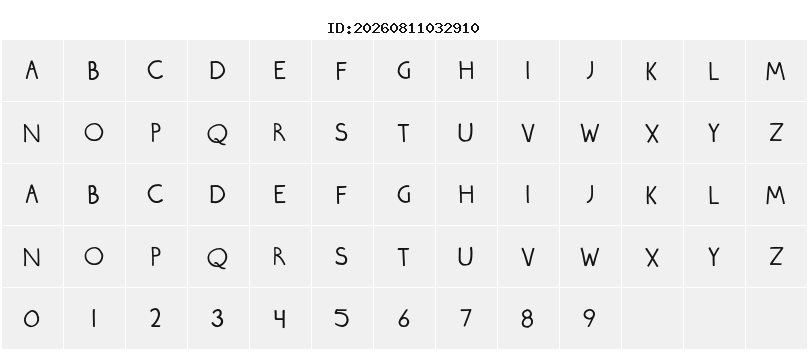
• Font Name: Roundmarker
• Designer: Alex
• Manufacturer: PYRS Fontlab Ltd. / Made with FontLab
• Description: Also released under the name "February 11, 2015" with lowercase set on creativemarket.com
About Roundmarker.otf
Roundmarker.otf is a modern, elegant sans-serif font designed for ultimate readability and visual harmony. Perfect for branding, headlines, web design, and print materials.